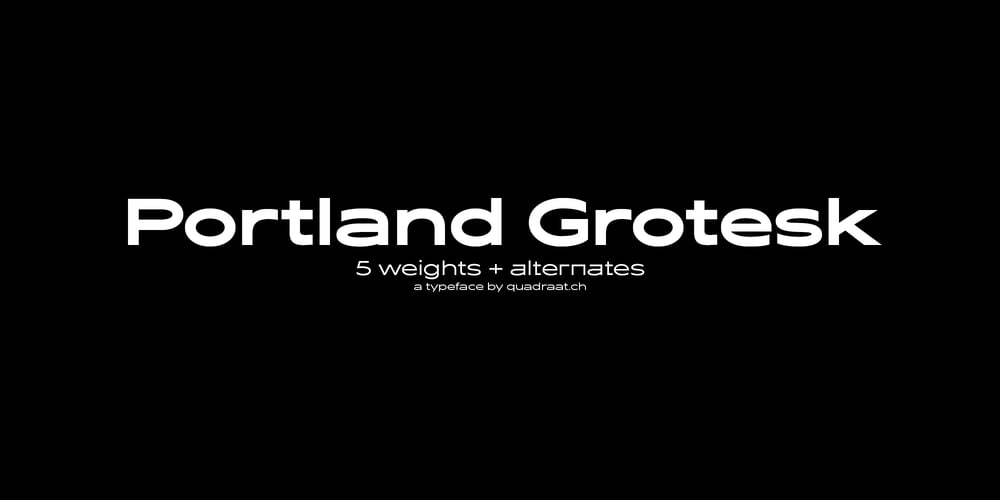
Portland Grotesk Font Family was designed by Raphael Picard and published by QUADRAAT. Portland Grotesk contains 5 styles and family package options. Portland Grotesk is a grotesque sans serif typeface with chubby proportions in 5 weights Light – Regular – Medium – SemiBold – Bold and supports all latin languages. Easy to use and easy to read.The character set contains 1109 glyphs with a wide range of alternates characters and includes:- Small Capitals- Fractions- Superiors, denominators- Open type features such as case sensitive, standard ligatures and several stylistics setsPortland Grotesk fits perfectly for all types of communication (Books, magazines, posters)